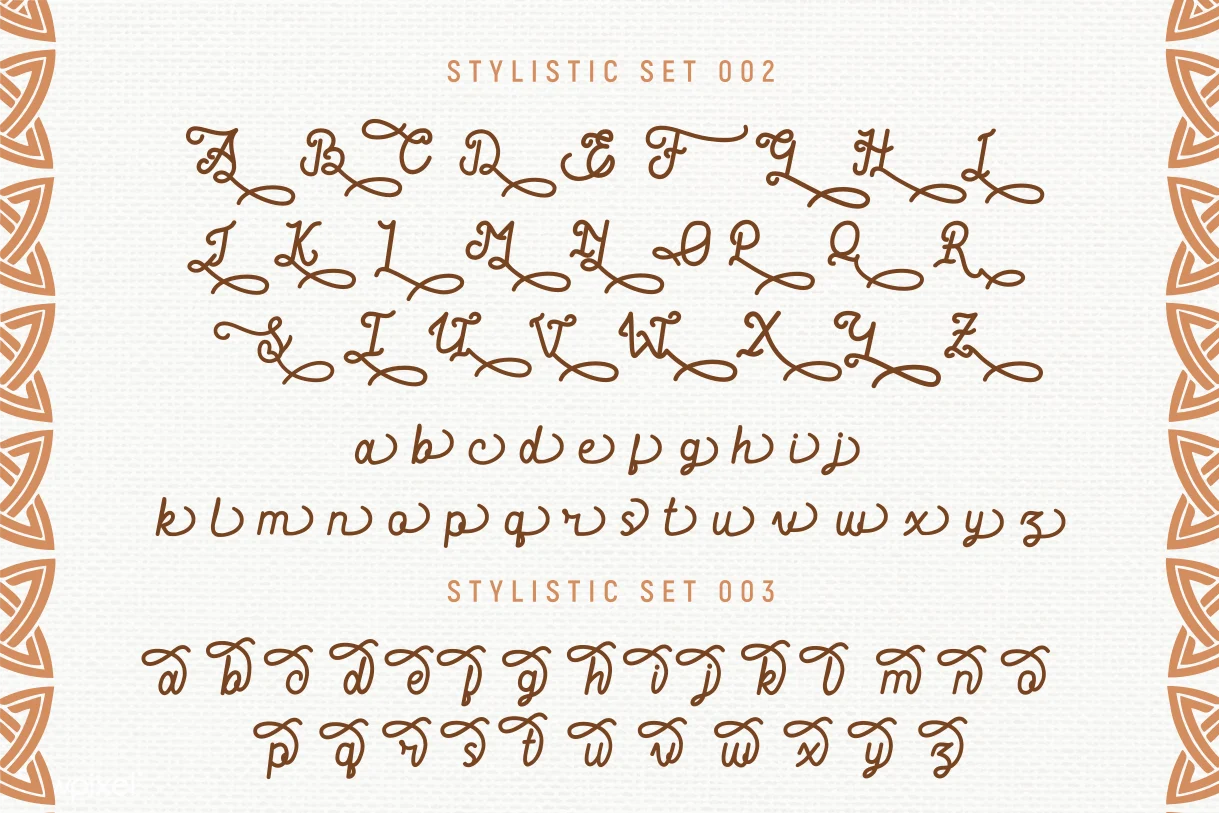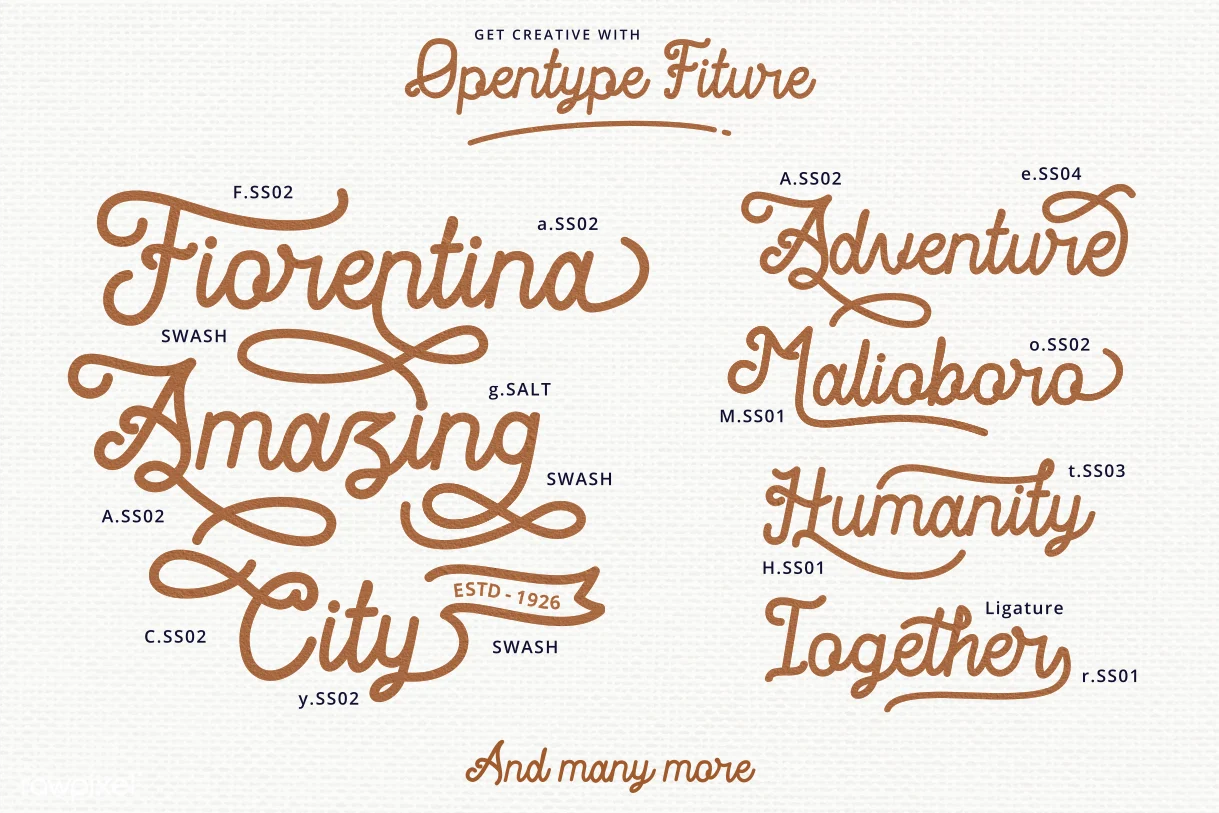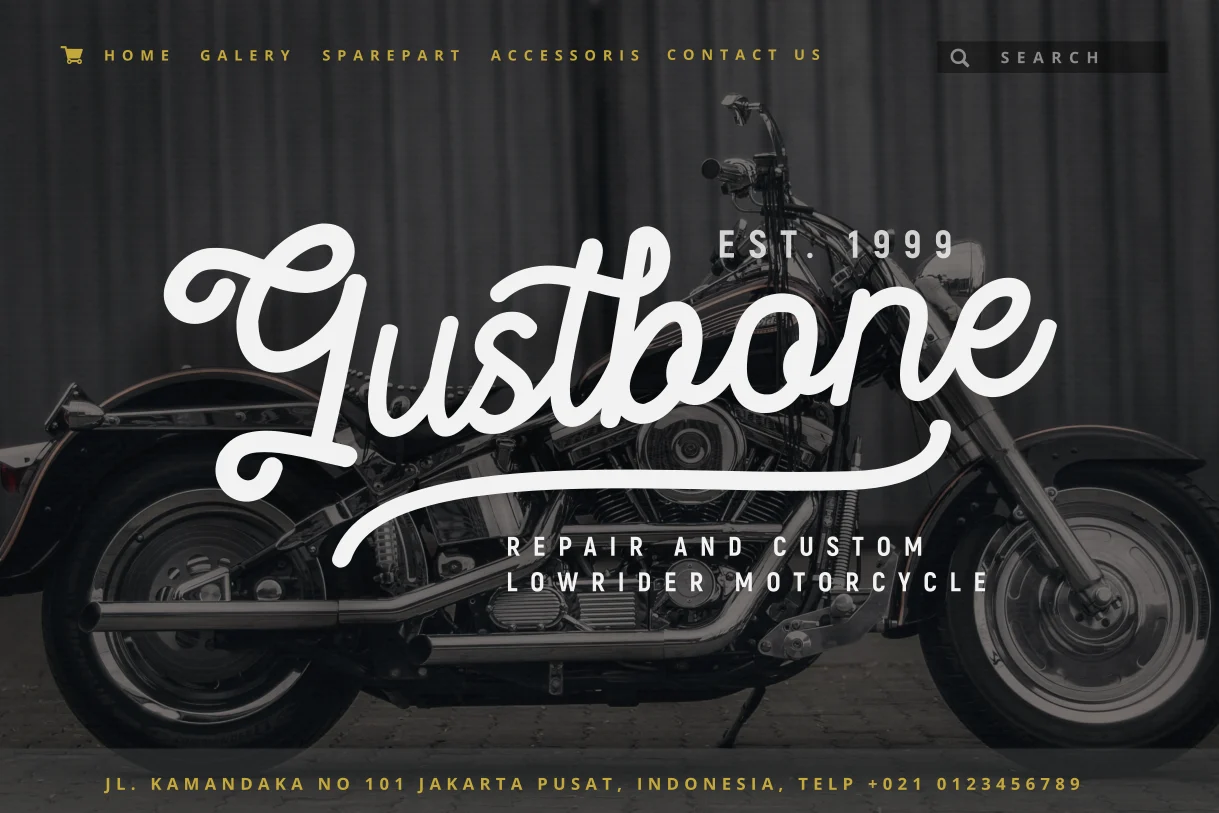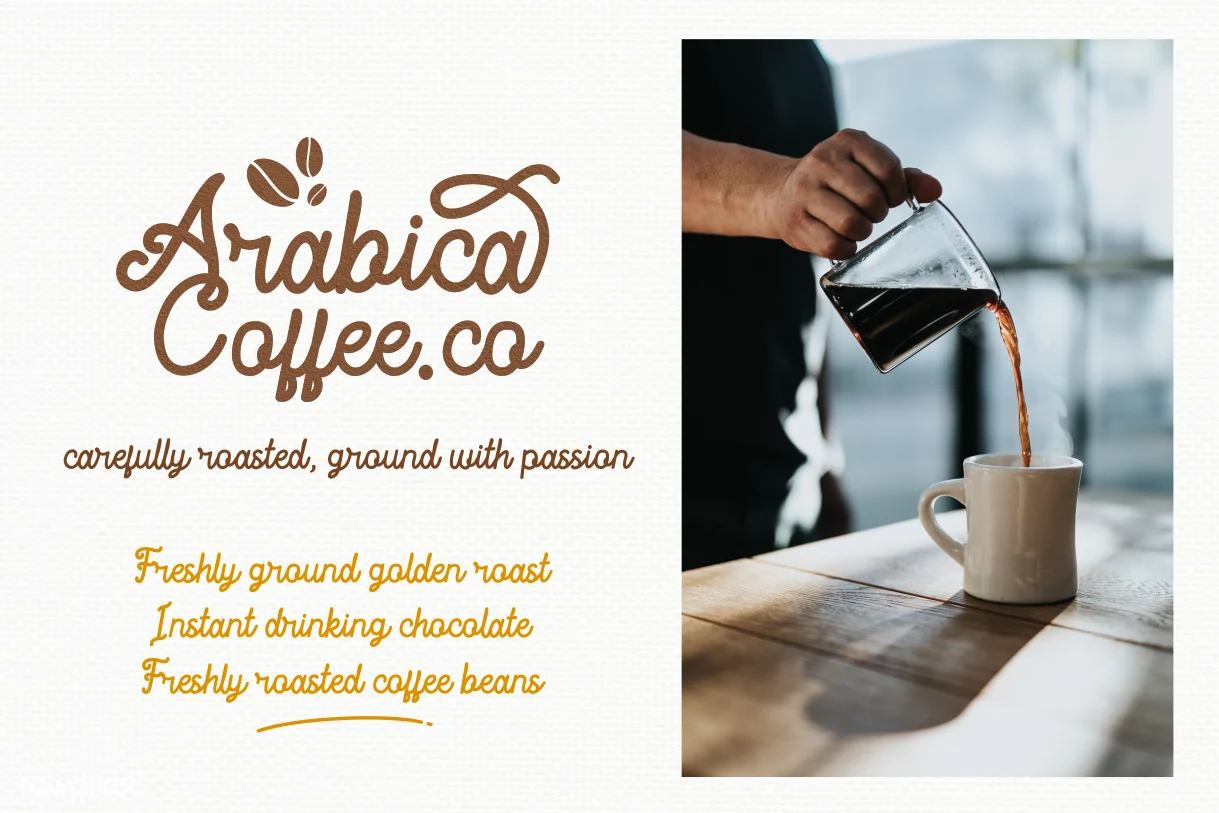
Romantica Story Font
Romantica Story Script Font is a monoline script font with much fiture. It comes in uppercase, lowercase, ligature, stylistic alternate, swash, and support multilingual.